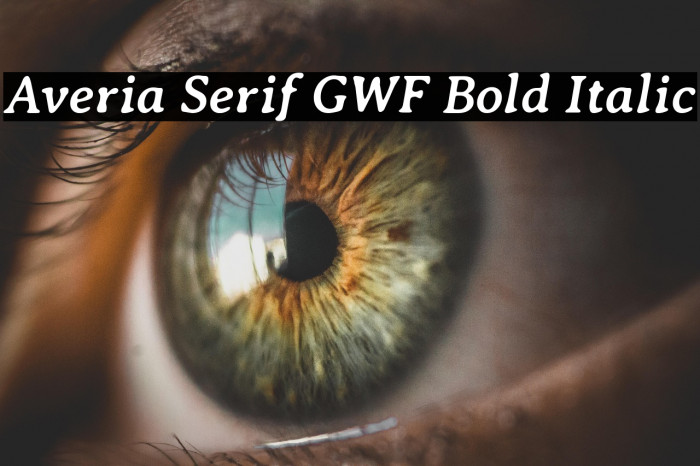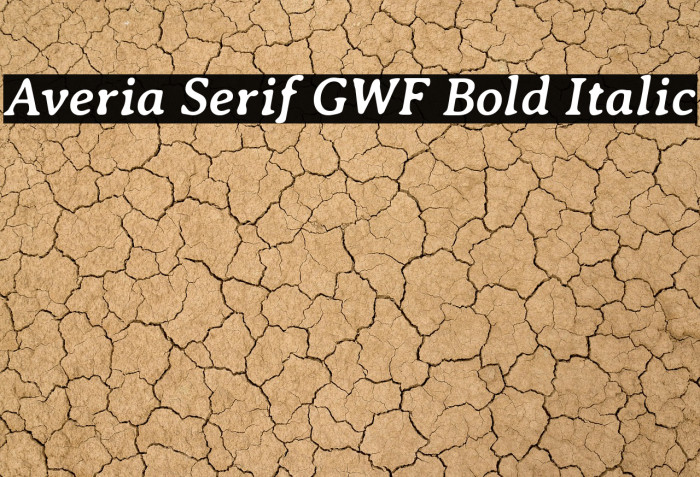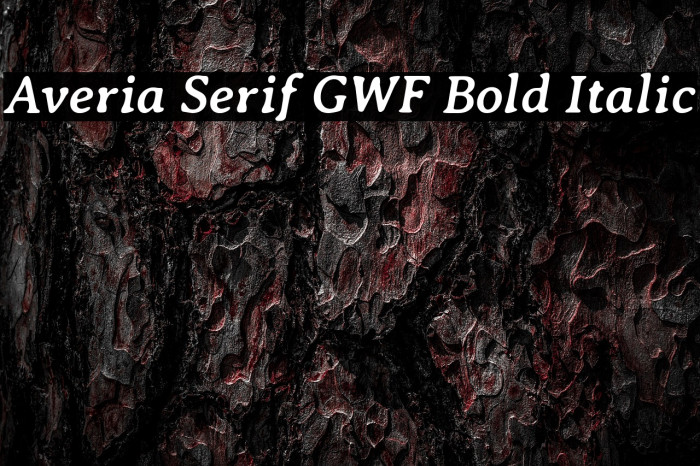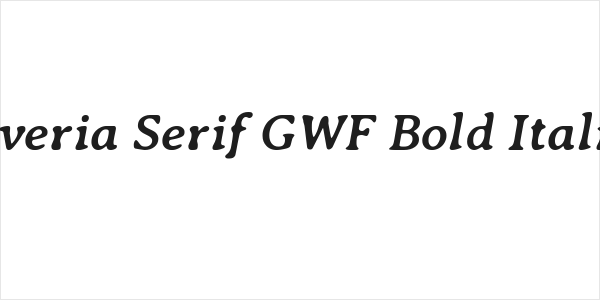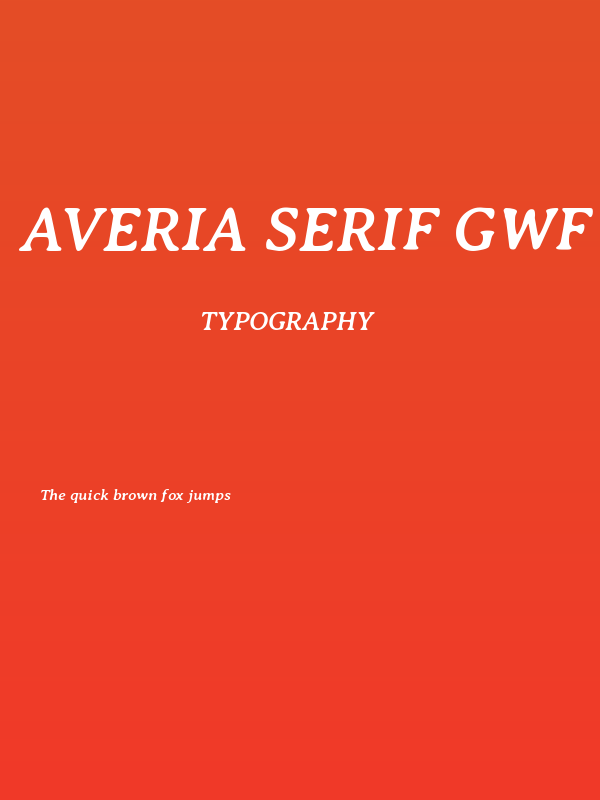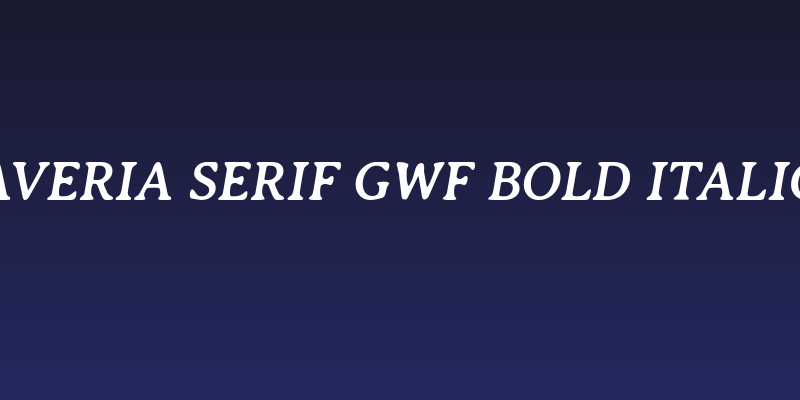
Averia Serif GWF Bold Italic Font
Averia Serif GWF Bold Italic Description
This font features a bold and italicized serif style, combining traditional serif elements with a modern twist. The characters have a smooth, flowing appearance, with slightly exaggerated curves and a consistent stroke width that adds to its boldness. The italic slant gives it a dynamic and elegant feel, making it suitable for both formal and creative applications. The numerals are clear and distinct, while the special characters maintain the font's overall aesthetic. This font is versatile, offering a blend of readability and style.